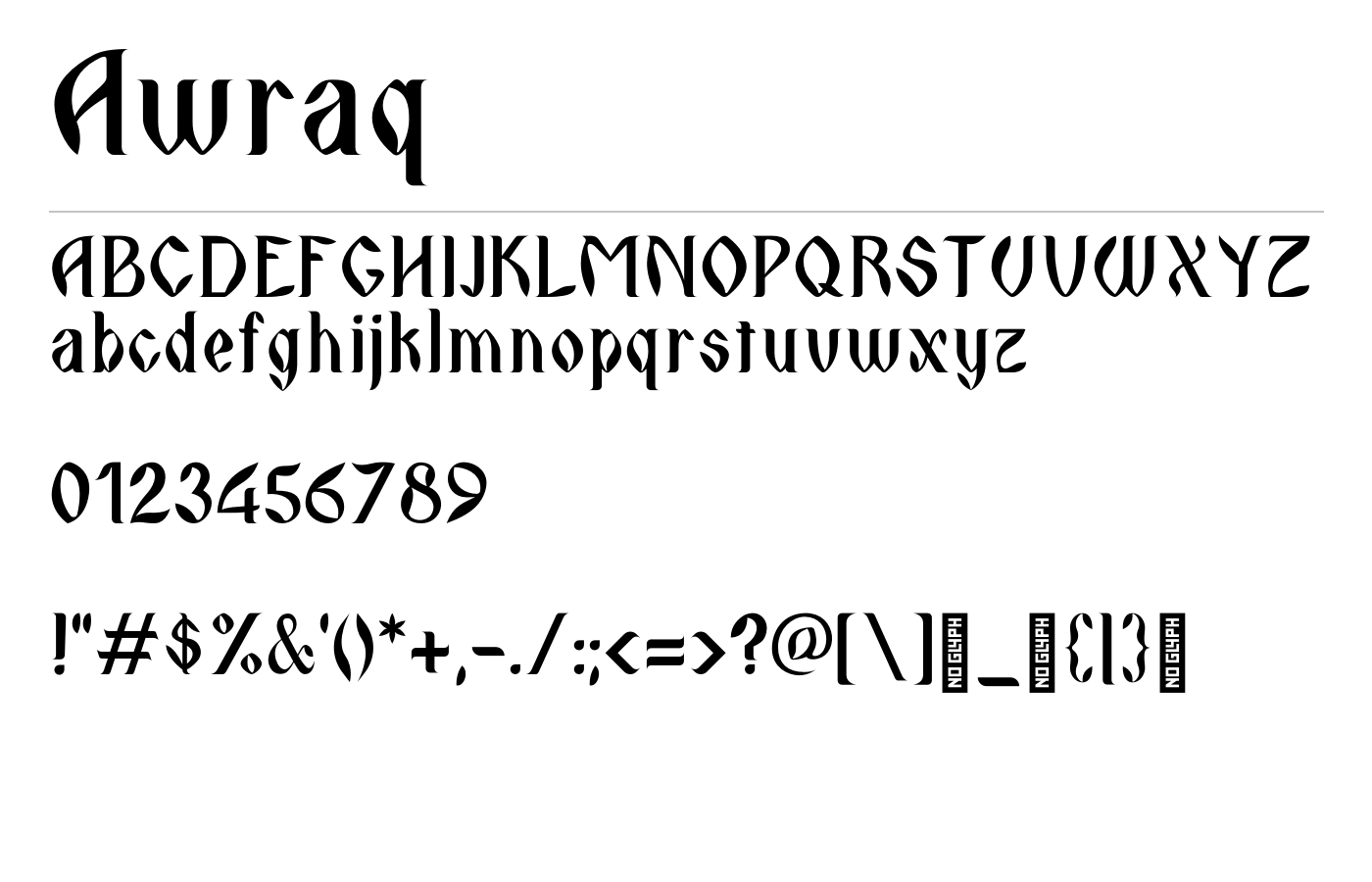
Awraq is a distinctive serif font with a medium weight and narrow proportions, featuring sharp, angular strokes that create a bold, dramatic appearance. Its unique letterforms, including pointed terminals and high-contrast strokes, give it an artistic, slightly gothic vibe that works well for striking headlines, logo design, and vintage-inspired branding. This font is ideal for projects seeking a mysterious, elegant, and unconventional style that commands attention.
Awraq Font
About Awraq Font
| Font family | Awraq Font |
| Designer | Omar Shoikh |